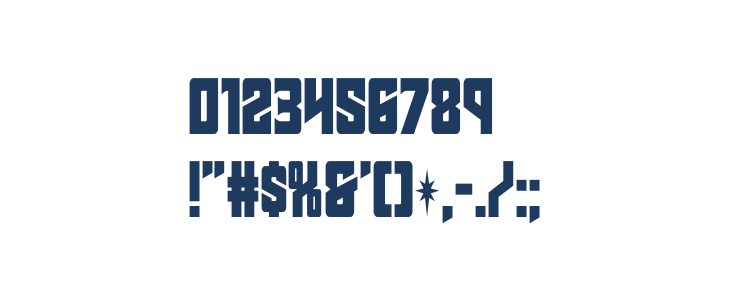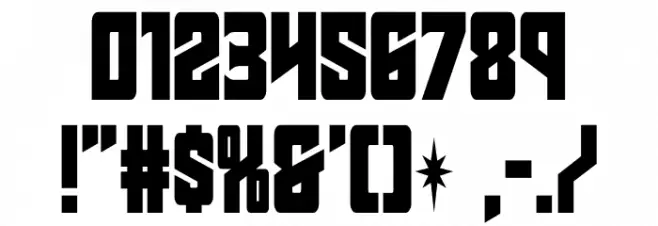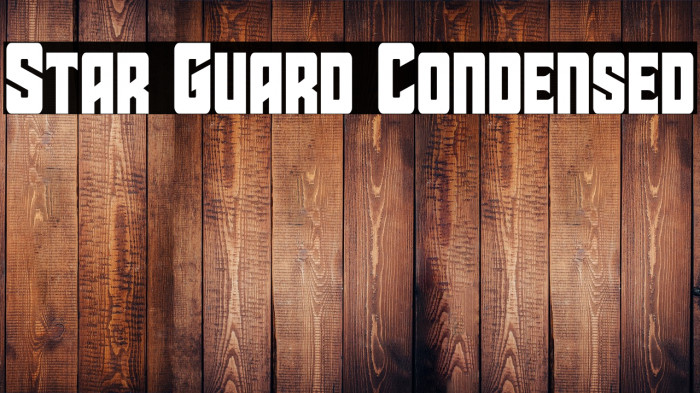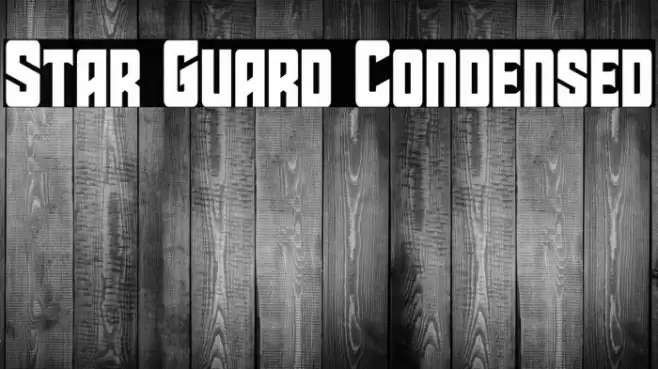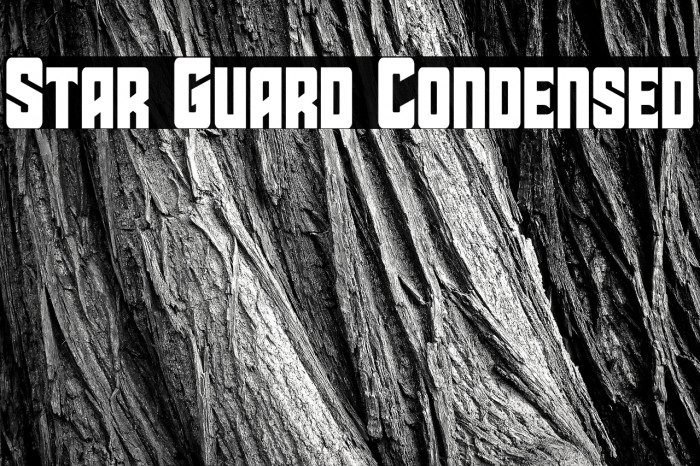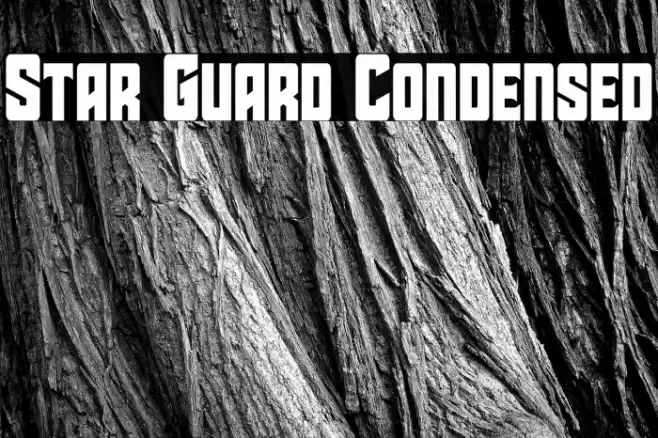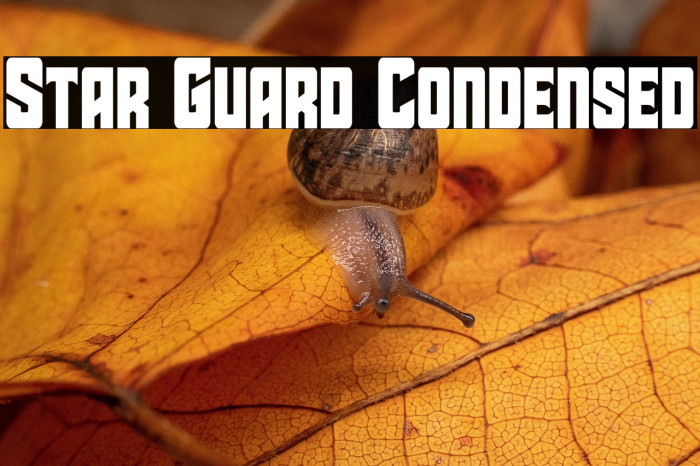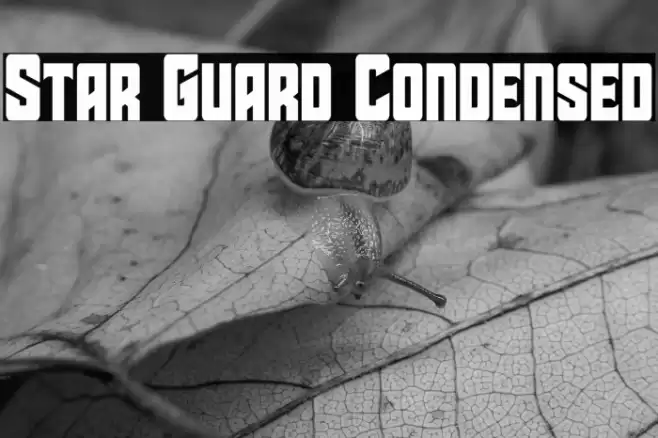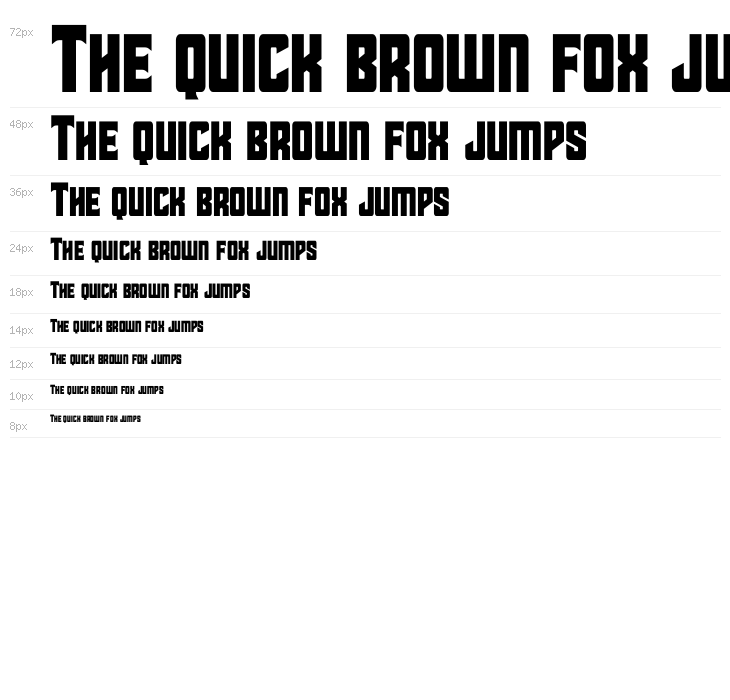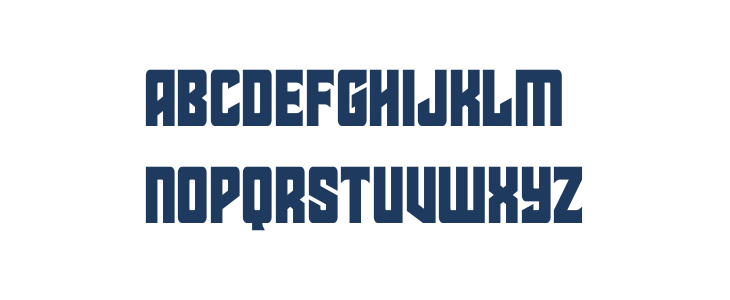
Star Guard Condensed Font
Star Guard Condensed Description
This font features a bold, condensed style with a strong geometric influence. The characters are blocky and angular, giving them a futuristic and dynamic appearance. The uppercase letters are particularly striking, with sharp edges and a uniform height that creates a cohesive look. The numbers and special characters maintain this bold aesthetic, ensuring consistency across all elements. The font's design is highly legible, making it suitable for impactful headlines and titles. Its condensed width allows for efficient use of space, making it ideal for projects where space is limited but impact is essential.
| Overall Style | Futuristic, Modern |
| Proposed Projects | Ideal for sci-fi movie posters, video game titles, branding for tech companies, and any project requiring a modern, impactful look. |